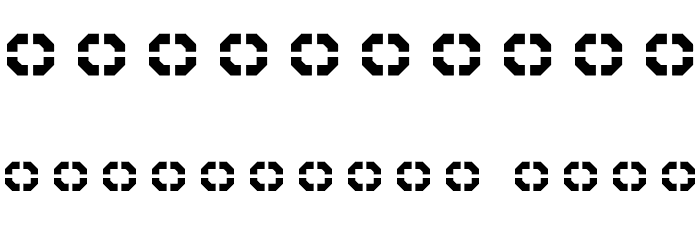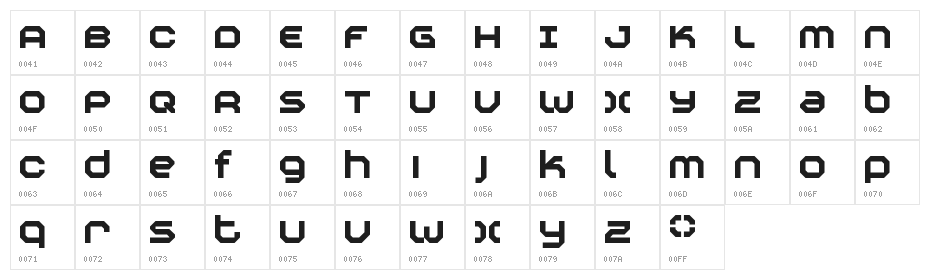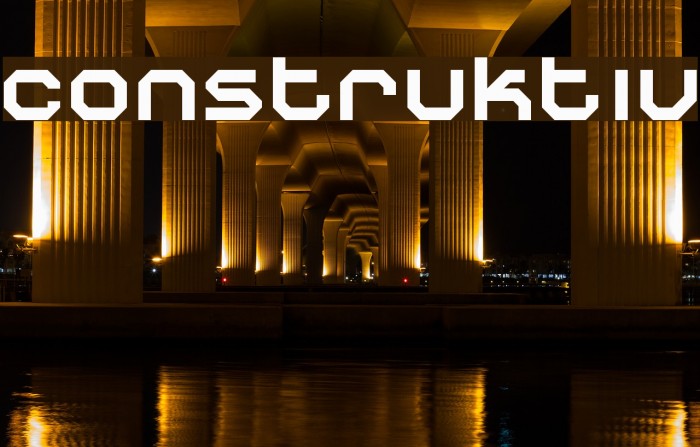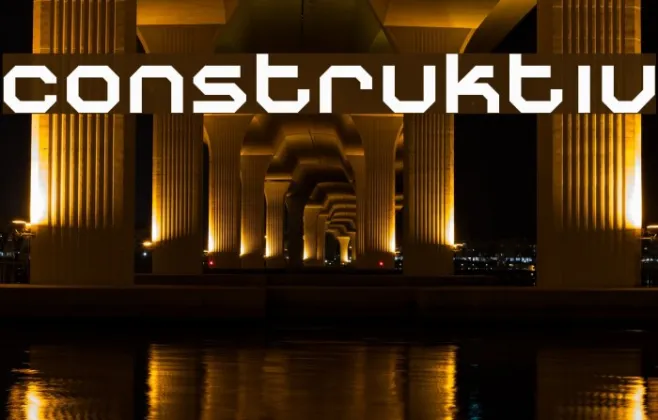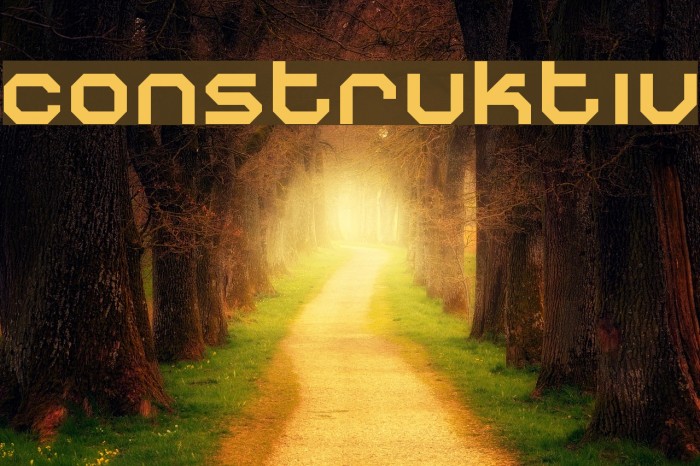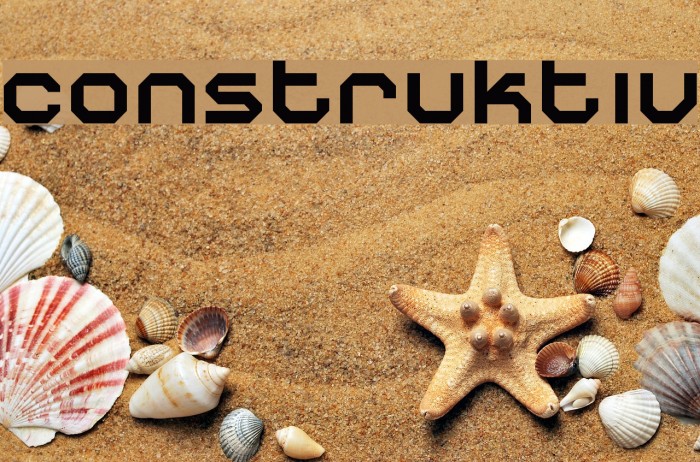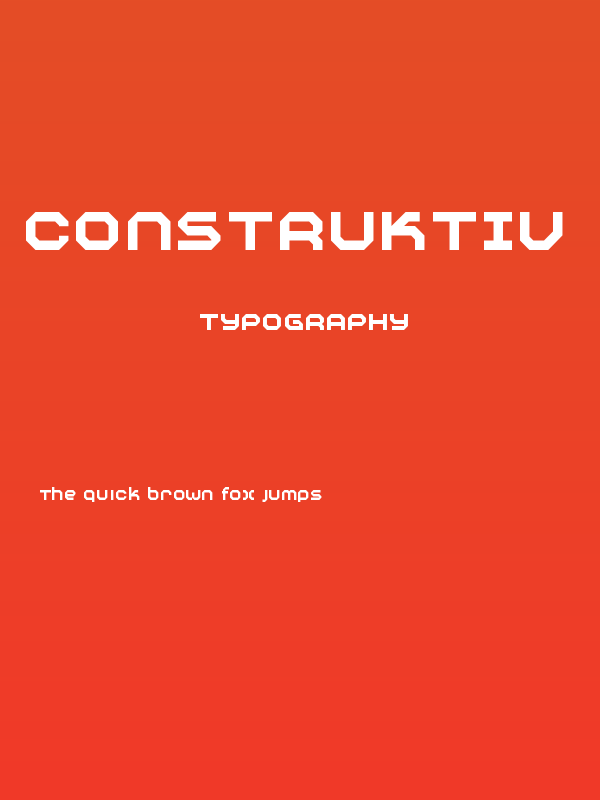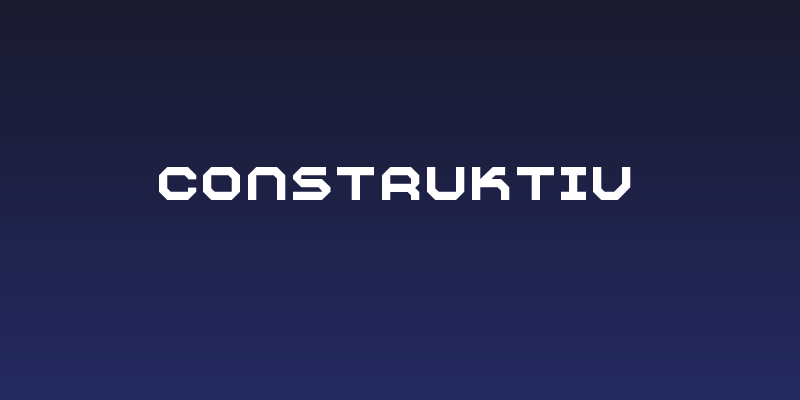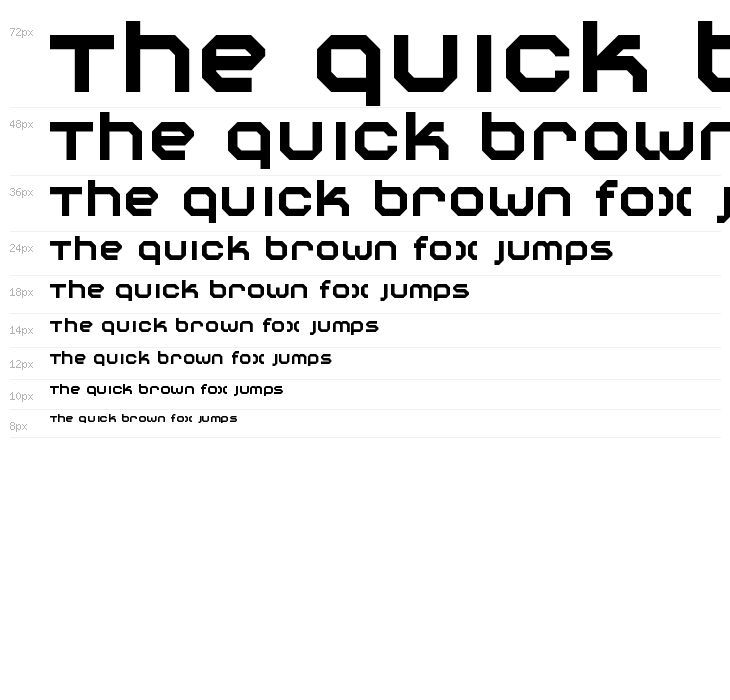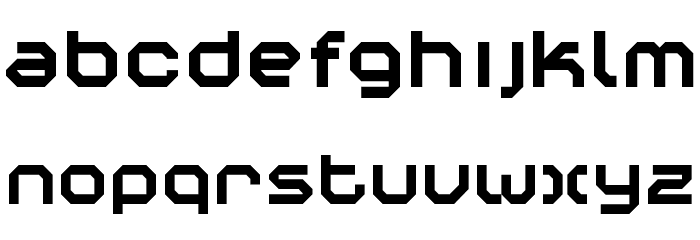
Construktiv Font
Construktiv Description
This font features a bold, geometric design with a distinctly modern and industrial feel. The characters are constructed with angular lines and sharp edges, creating a sense of strength and precision. The uppercase and lowercase letters maintain a consistent style, with uniform stroke widths and a blocky appearance. The numerals and special characters follow the same design principles, ensuring a cohesive look across all elements. The overall aesthetic is reminiscent of architectural and mechanical themes, making it suitable for projects that require a strong, impactful visual presence.
| Proposed Projects | Ideal for branding, posters, and signage that require a strong, modern aesthetic. |